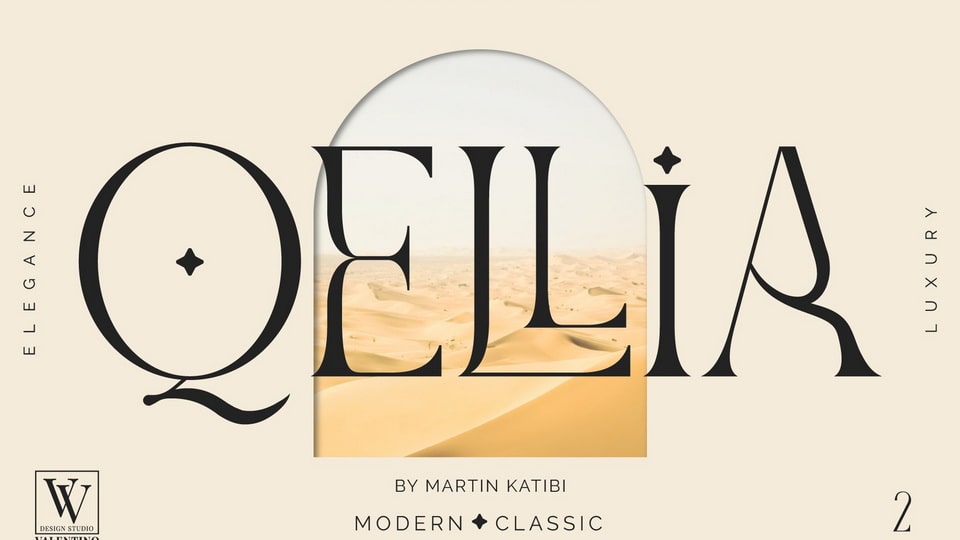
Download Qellia font, a modern typeface with lots of style and creativity. Qellia typeface is an exquisitely elegant svelte serif, with beautiful ligatures and unique alternate characters.